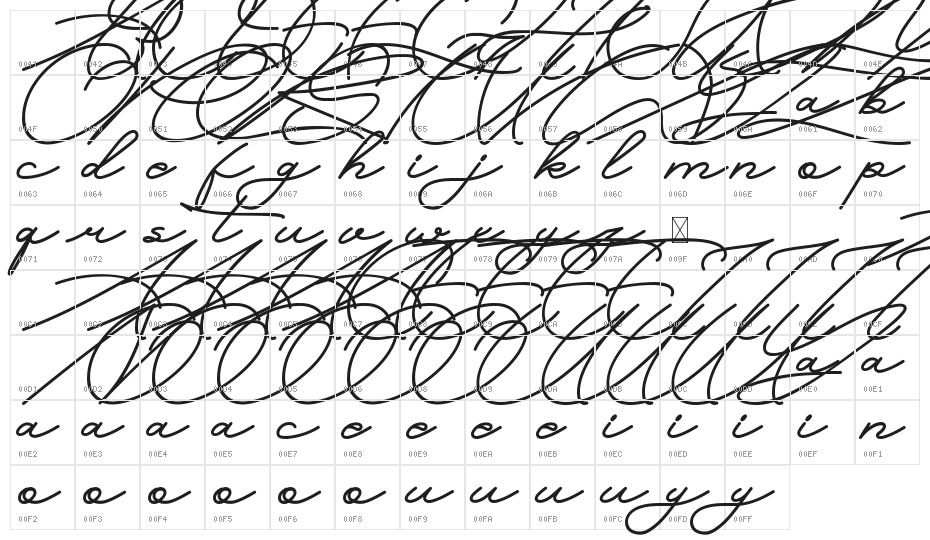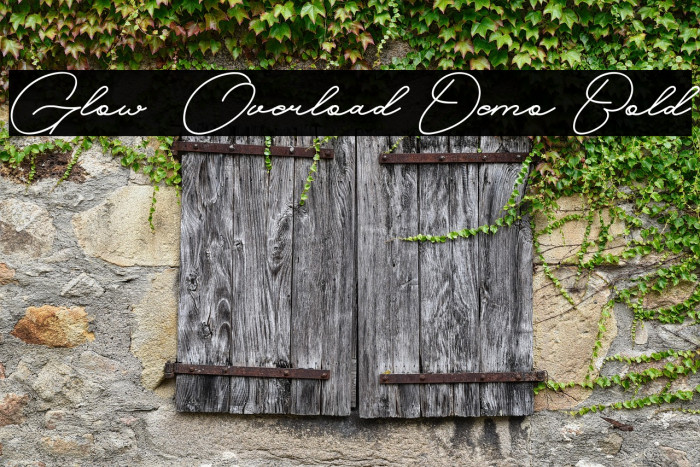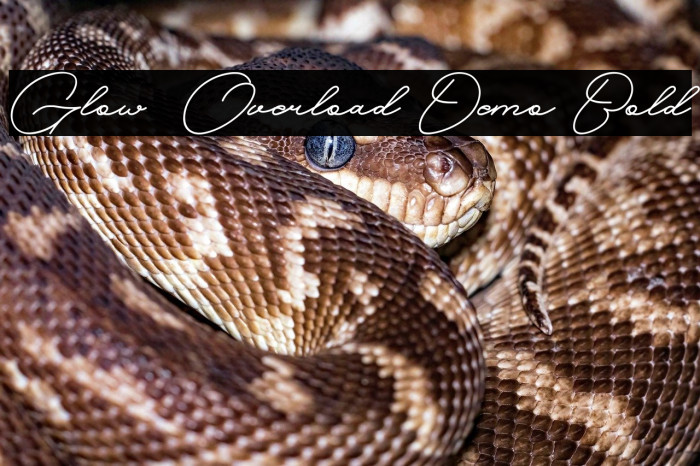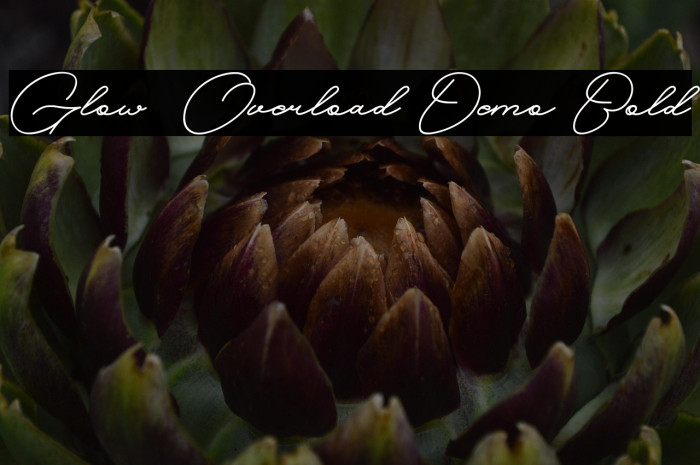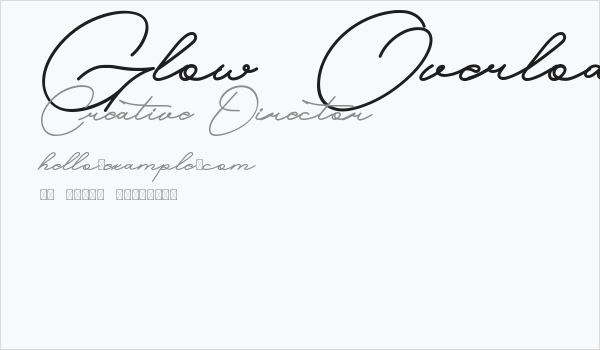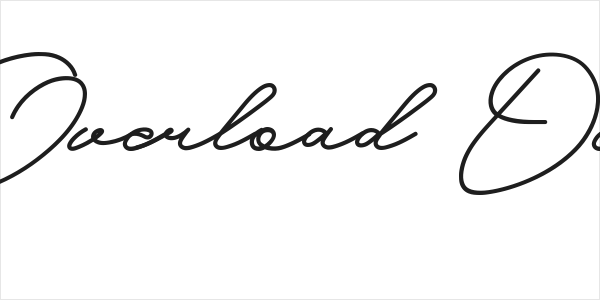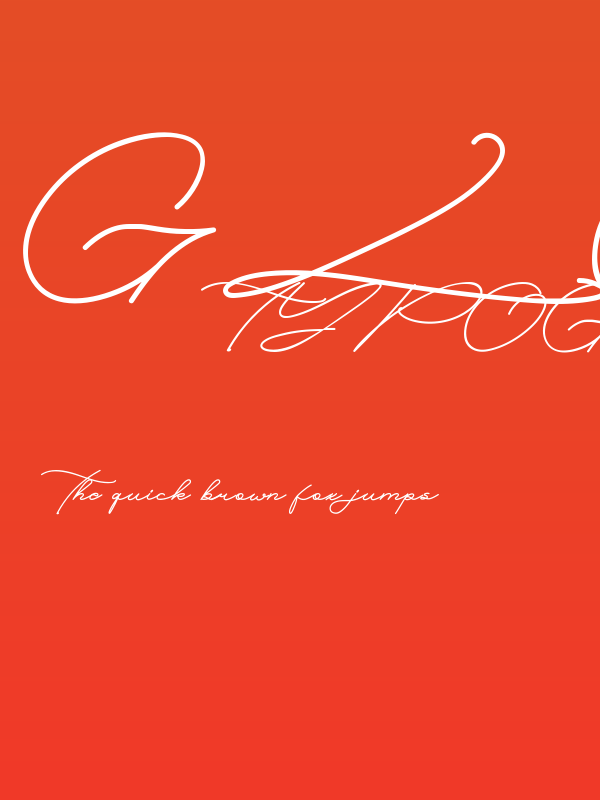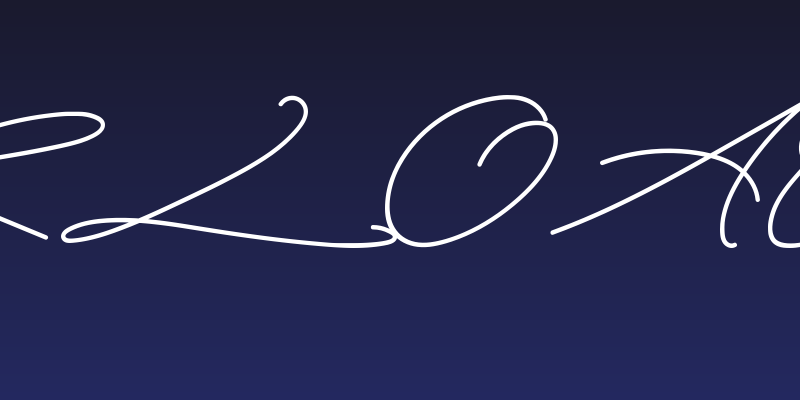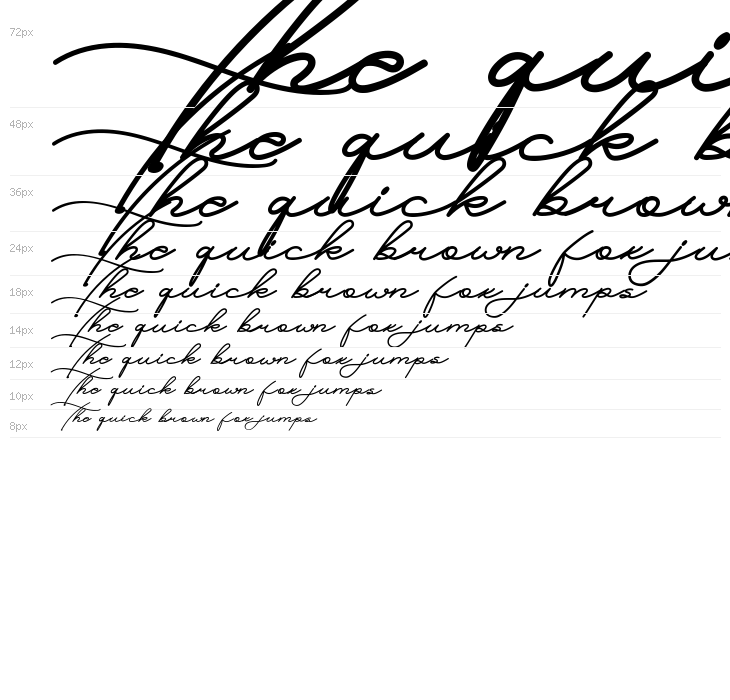
Glow Overload Demo Bold Font
Glow Overload Demo Bold Description
This font exudes elegance and fluidity with its cursive, handwritten style. The uppercase letters are slender and gracefully connected, while the lowercase letters are bold and expressive, creating a striking contrast. The characters flow seamlessly into one another, enhancing the script's natural and artistic appeal. The font's design is both sophisticated and approachable, making it suitable for a variety of creative applications. Its unique style captures attention and adds a personal touch to any project.
| Overall Style | Elegant, Artistic |
| Use Case | Logos, Invitations, Artistic designs |
| Proposed Projects | Ideal for wedding invitations, greeting cards, personal branding, and artistic projects. |